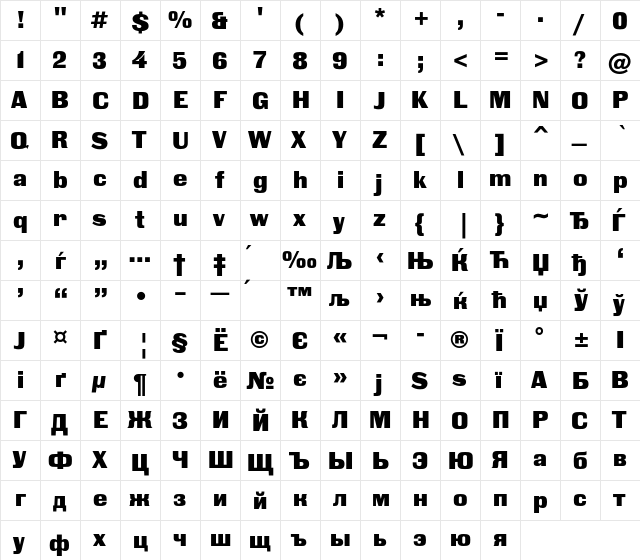
BlackGroteskC Regular
Design Context for BlackGroteskC Typeface
BlackGroteskC takes a clean, functional approach — its unadorned letterforms prioritise legibility and work reliably across screen and print environments.
Font Pairing: Works well alongside a characterful serif or display font that can carry the expressive load while BlackGroteskC handles the functional copy.
Pro Tip: Use BlackGroteskC for UI labels, navigation, and short-form body copy where clean legibility is the priority.